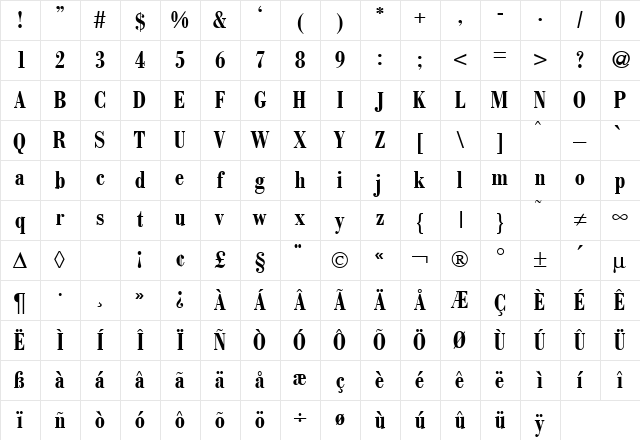
ModernBodoniCond Bold
Design Context for ModernBodoniCond
ModernBodoniCond is a composed and adaptable typeface that performs quietly and consistently across a wide range of design contexts. Its bold stroke weight gives it real presence on the page. Its narrow stance lets it pack a punch even in space-constrained designs.
Pro Tip: Use ModernBodoniCond in both headline and body roles to test its range before committing to a single application.